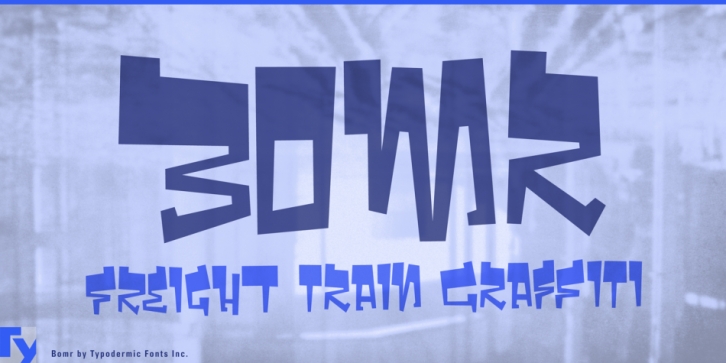
Bomr is a retro font published by Typodermic Fonts Inc.
Bomr was inspired by freight train graffiti. Huge top left serifs on the capitals give Bomr extra flare. Mix it up with capitals in the middle of a word or go totally nuts and mix upper and lower case for added impact. In OpenType savvy applications, some letter combinations are automatically replaced with custom letter/numeral pairs for an interesting effect.